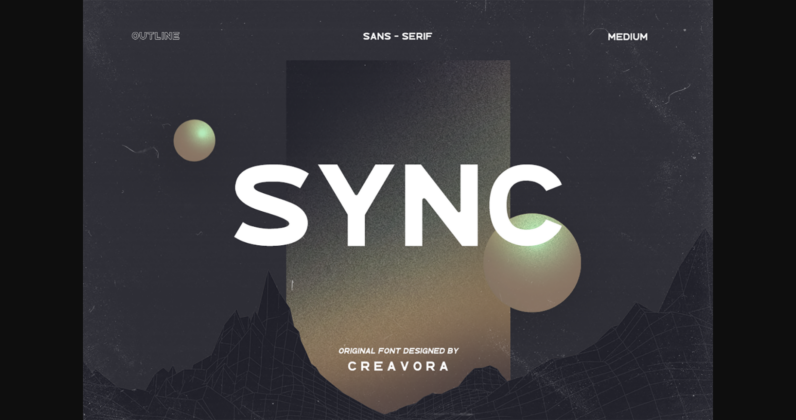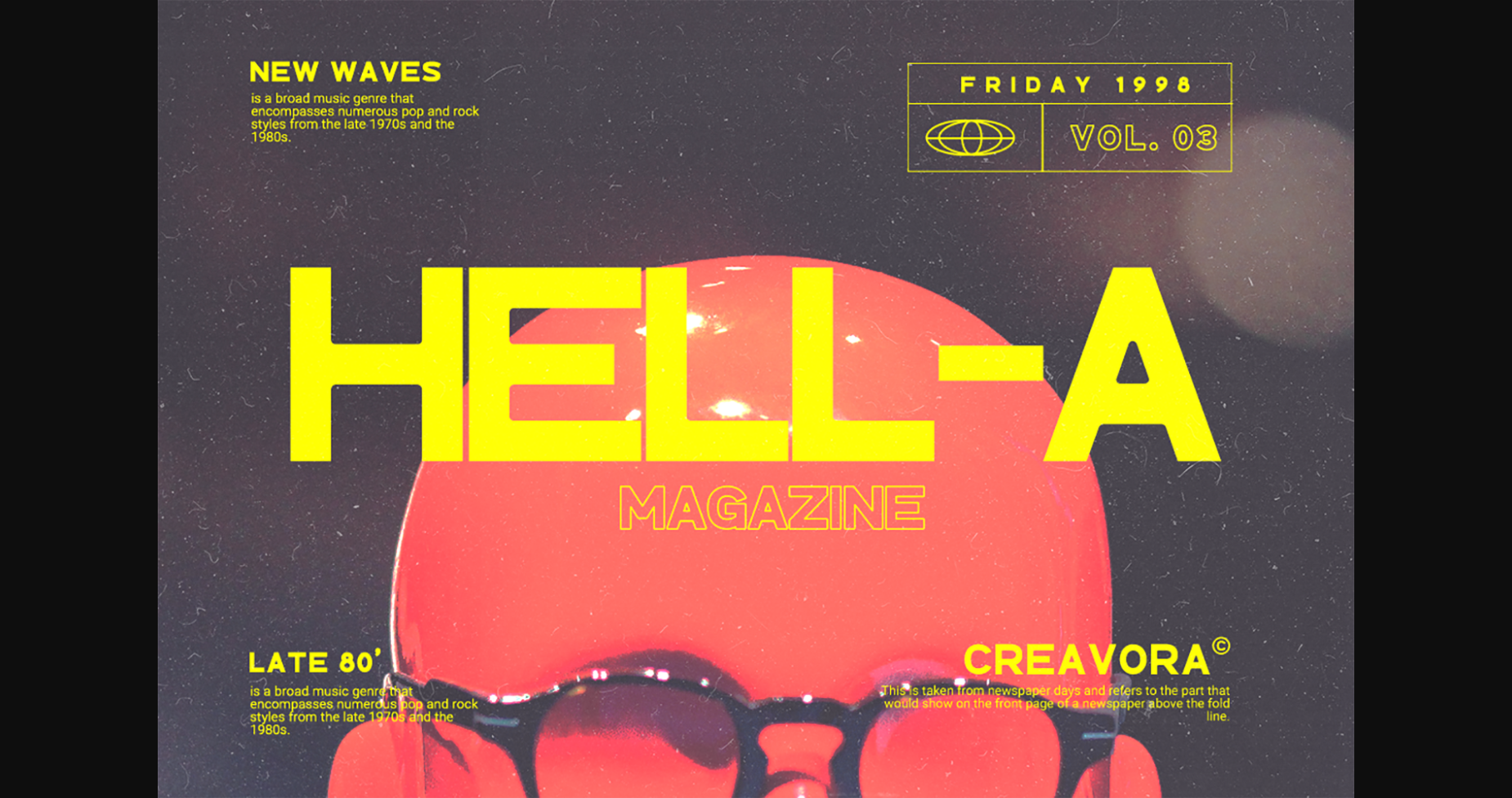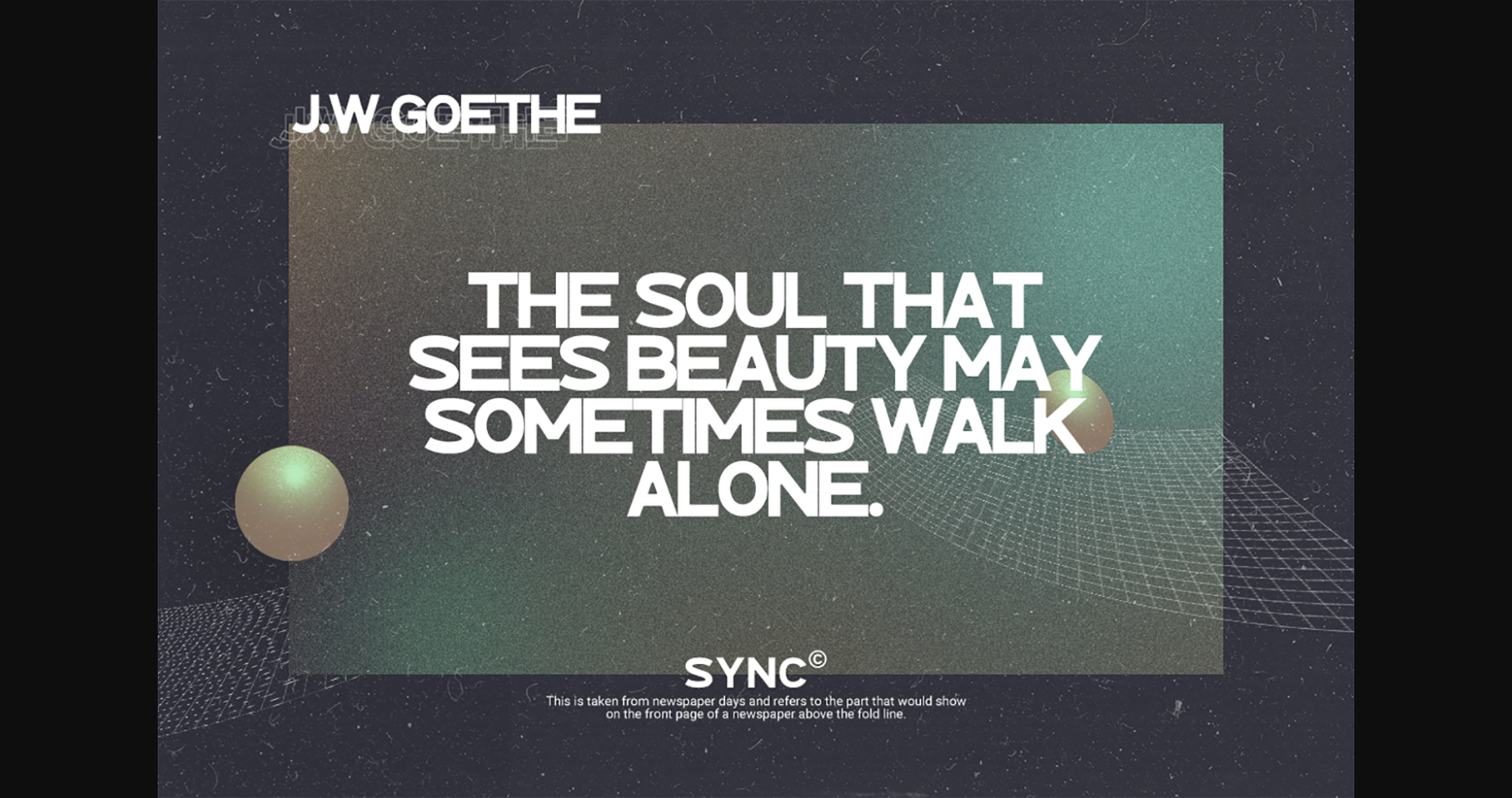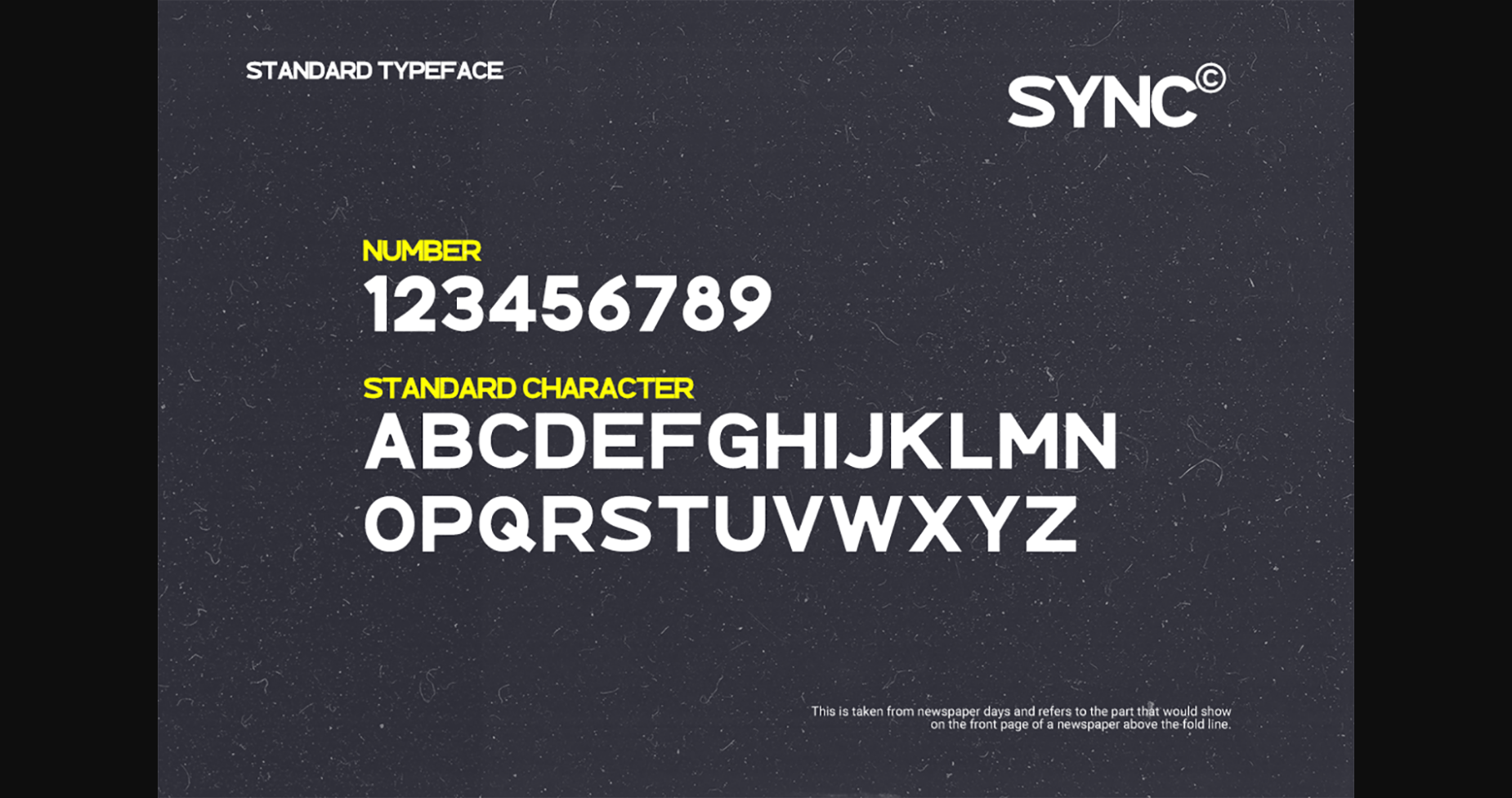
About Sync Font
Sync is an adaptable and timeless sans serif font. It can easily be matched to an incredibly large set of projects, so add it to your creative ideas and notice how it makes them stand out!